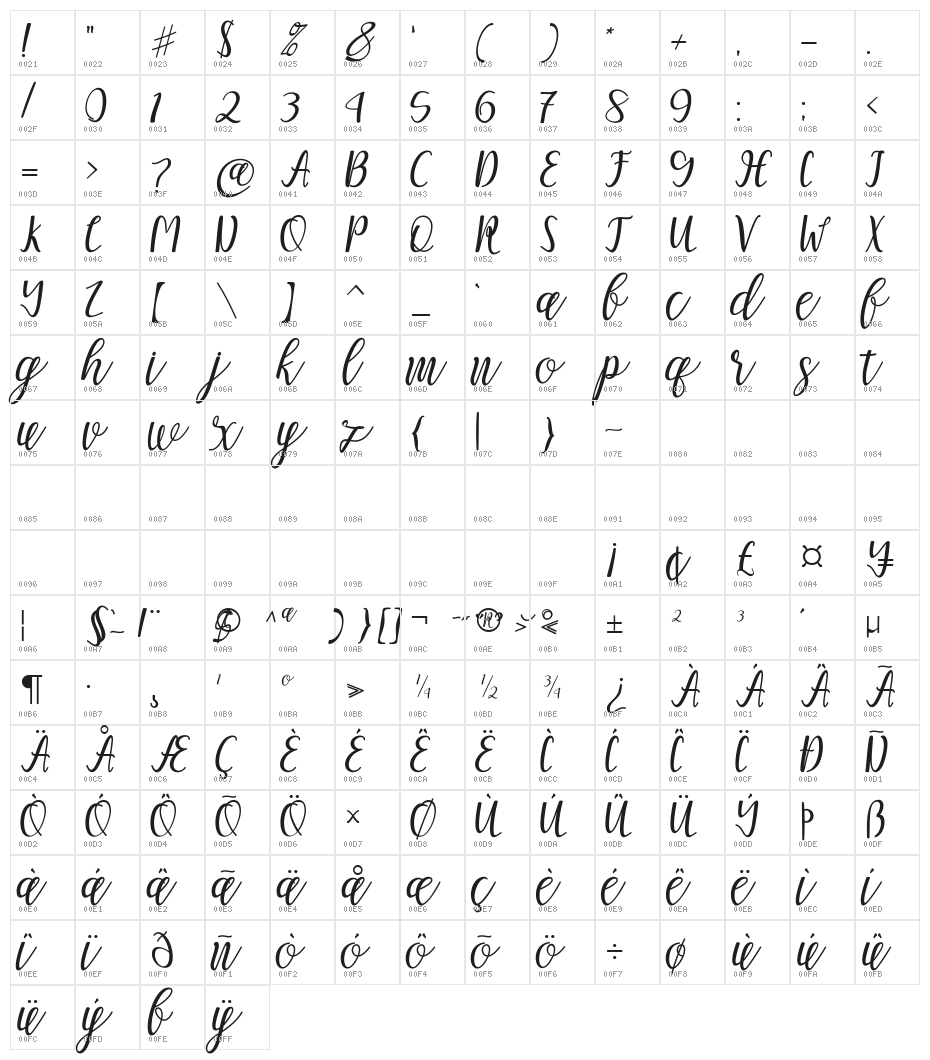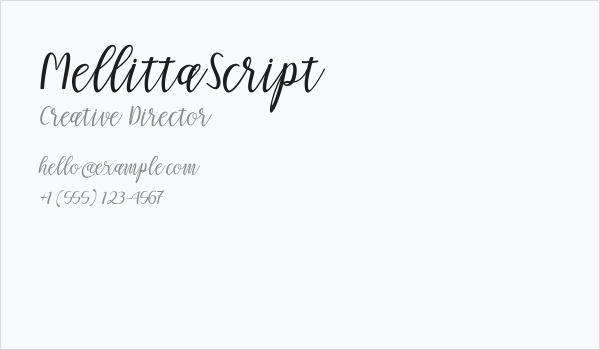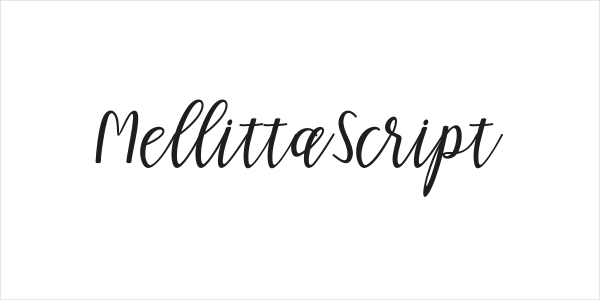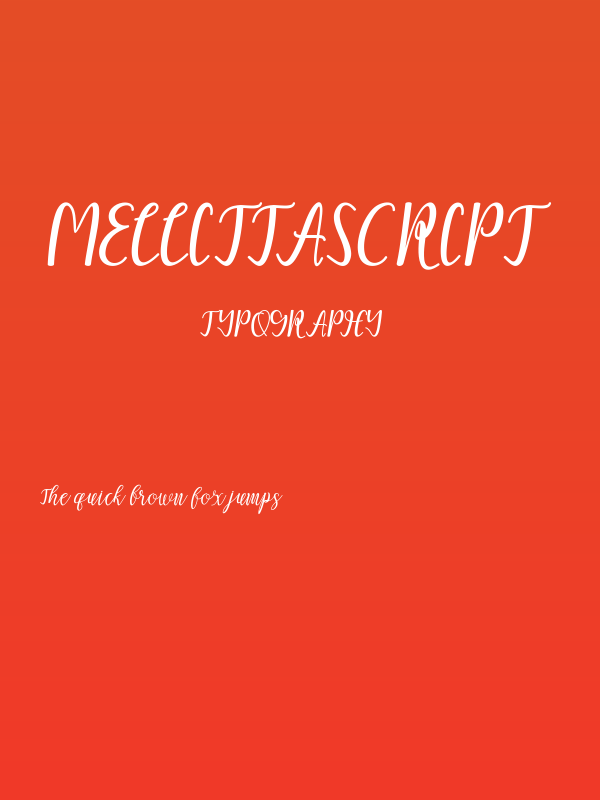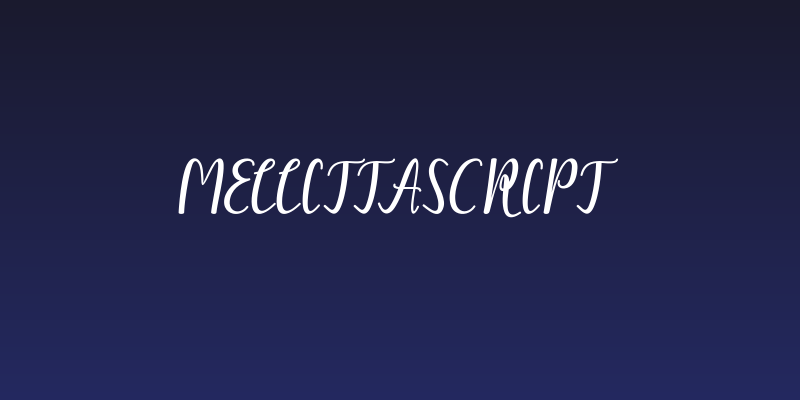
MellittaScript Font
MellittaScript Description
This elegant script font features a flowing, cursive style with smooth, rounded edges and a consistent stroke width. The uppercase letters are bold and slightly slanted, giving a sense of movement and grace. The lowercase letters are more delicate, with intricate loops and swashes that add a touch of sophistication. The numerals are clear and easy to read, maintaining the same fluid style as the letters. Special characters are designed with the same attention to detail, ensuring a cohesive look across all glyphs. This font is perfect for projects that require a personal, handwritten touch, such as invitations, greeting cards, and branding materials.
| Overall Style | Elegant |
| Use Case | Invitations, Branding, Greeting Cards |
| Proposed Projects | Ideal for wedding invitations, personal branding, greeting cards, and elegant packaging. |